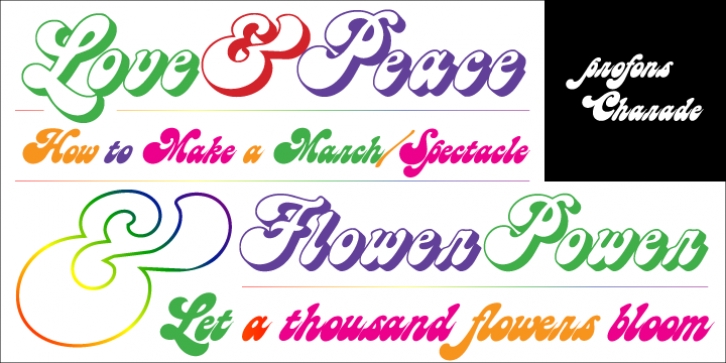
Charade is a soft, resonant design that suggests comforting warmth, joy and cosiness. It harks back to the 60s and 70s, flower power, parties and having a good time.
The outline and shadow styles are provided for special typographical expressions, for example for titles of films and videos.